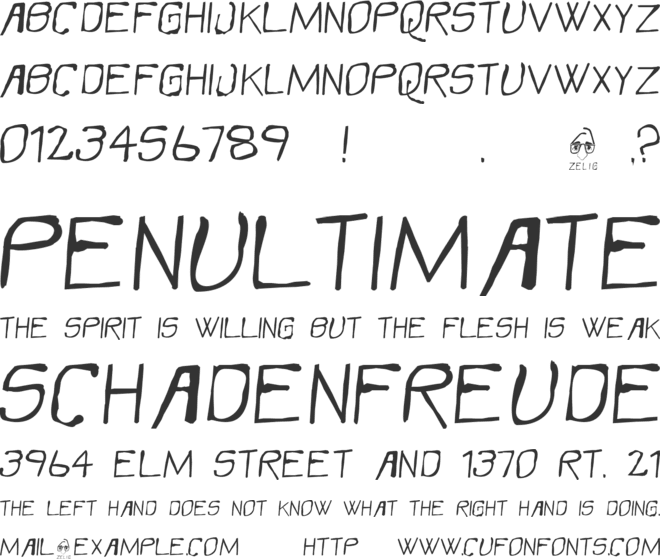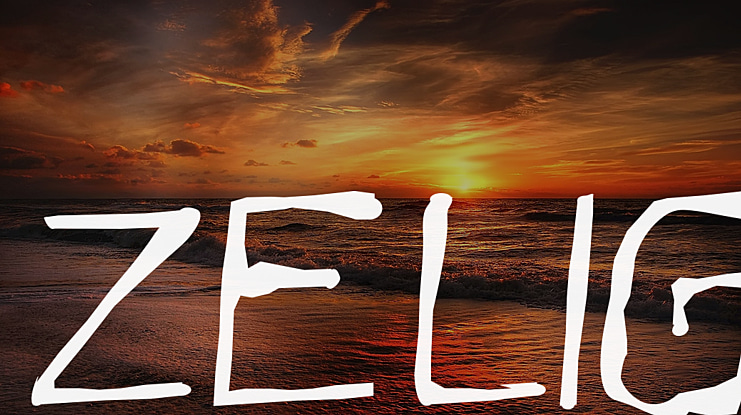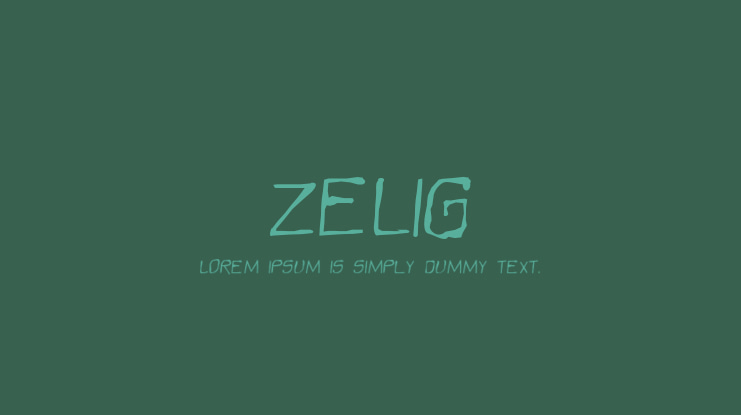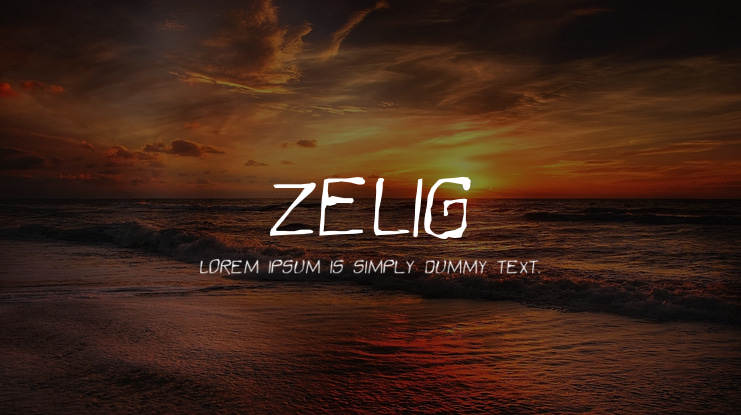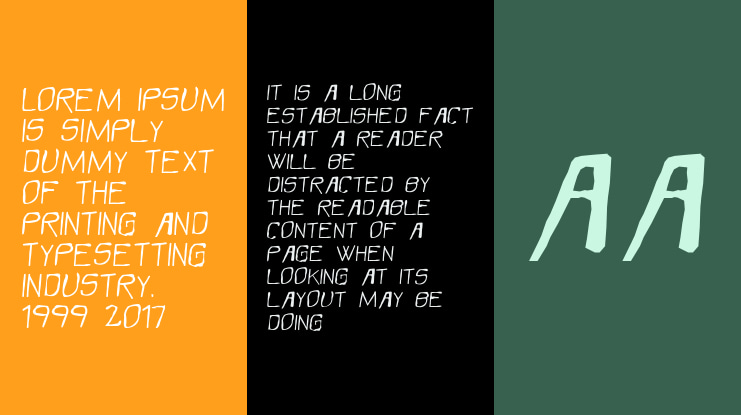
ZELIG Font
Directly from the film directed and starring WOODY ALLEN, the unpublished font for all admirers of the film.
Direttamente dal film diretto e interpretato da WOODY ALLEN, il font inedito per tutti gli estimatori del film.